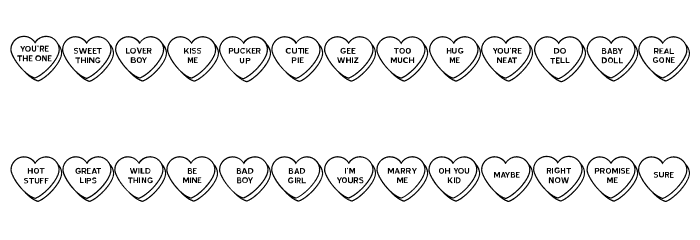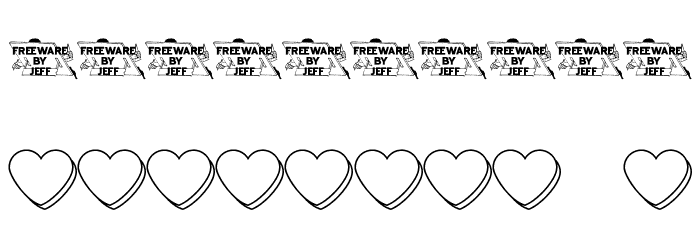
Heart of the Matter JL Font
This decorative font is designed with a playful and romantic theme, featuring text enclosed within heart shapes. Each character is presented in uppercase letters, emphasizing a bold and clear style that stands out against the heart outlines. The font is ideal for conveying messages of love and affection, with phrases like 'YOU'RE THE ONE', 'SWEET THING', and 'KISS ME' adding to its charm. The heart shapes are consistent in size and outline, providing a uniform look across all characters. This font is perfect for Valentine's Day cards, romantic notes, or any project that requires a touch of whimsy and sentimentality.
A playful, romantic font with uppercase letters inside heart shapes.
- Proposed Projects: Ideal for Valentine's Day cards, romantic notes, wedding invitations, and love-themed crafts.